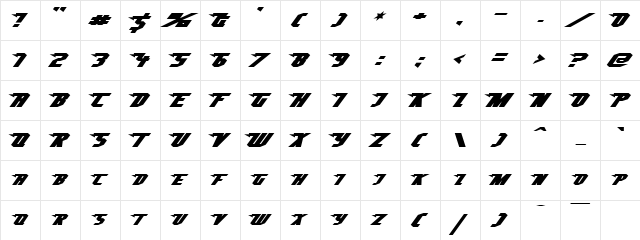
SuperHeterodyne Regular
Design Context for SuperHeterodyne Typeface
SuperHeterodyne is a composed and adaptable typeface that performs quietly and consistently across a wide range of design contexts.